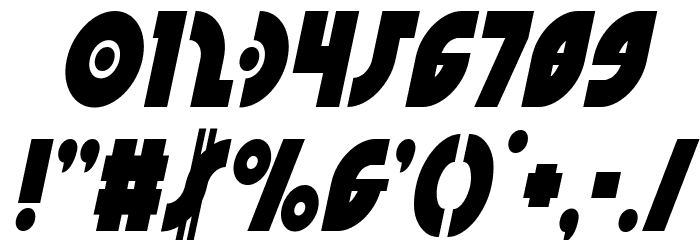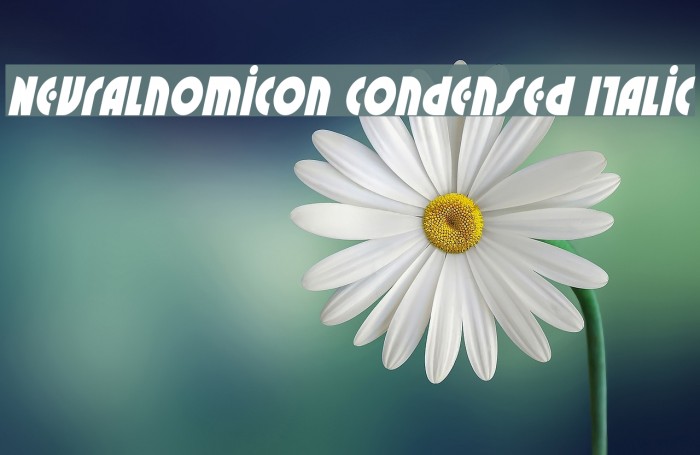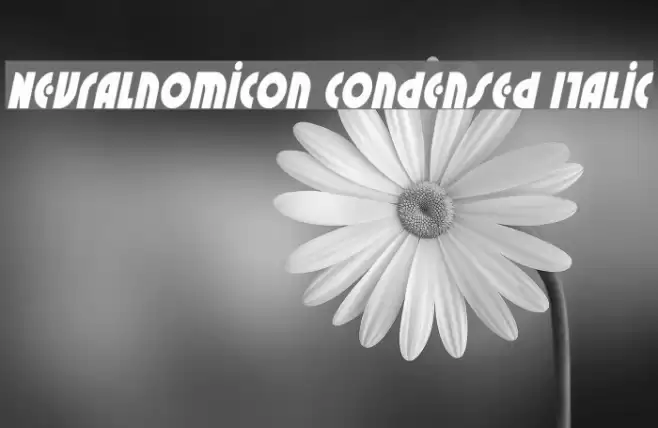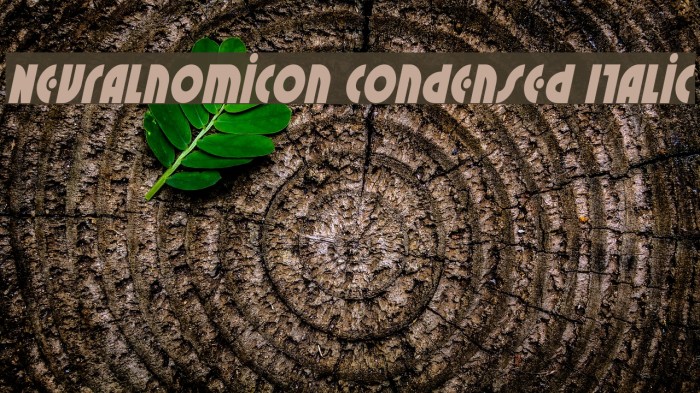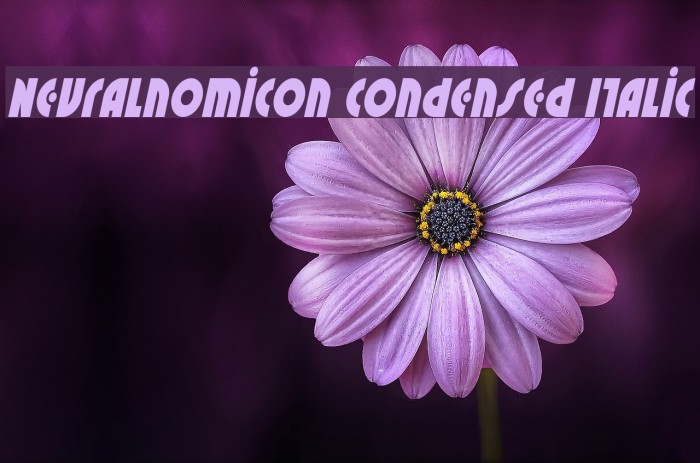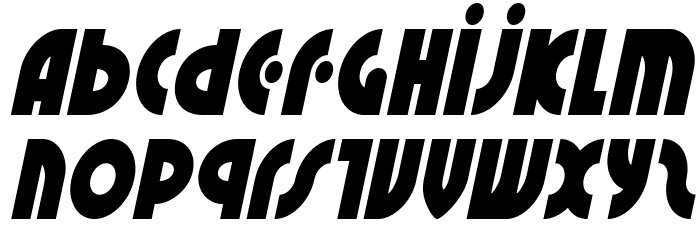
Neuralnomicon Condensed Italic Font
Neuralnomicon Condensed Italic Description
This font features a bold and dynamic style with a condensed and italicized form. The characters are uniquely designed with a futuristic and geometric aesthetic, incorporating sharp angles and smooth curves. The uppercase and lowercase letters maintain a consistent style, with the lowercase slightly smaller but equally bold. Numbers and special characters follow the same design principles, ensuring uniformity across all glyphs. The font's condensed nature allows for efficient use of space, making it suitable for impactful headlines and titles.
A bold, condensed, and italicized font with a futuristic geometric design from Uncategorized fonts.
- Proposed Projects: Ideal for sci-fi themed projects, modern branding, eye-catching posters, and innovative product packaging.
- Character Spacing: Tight